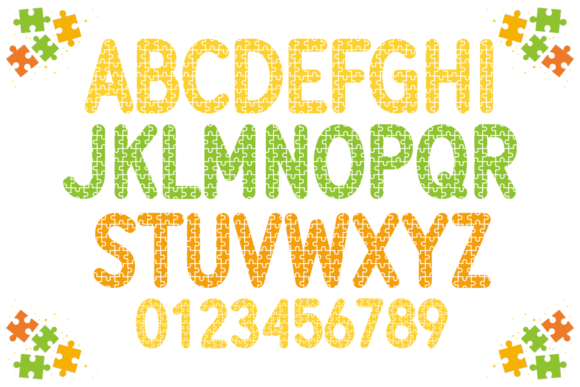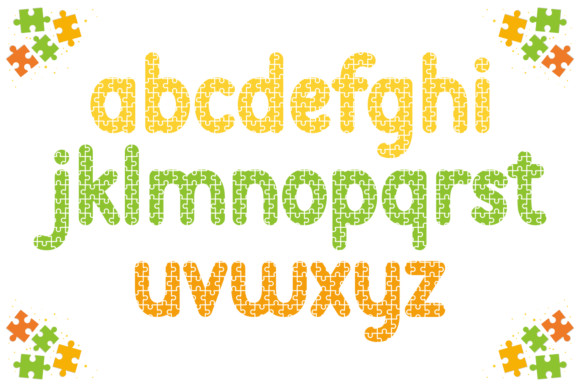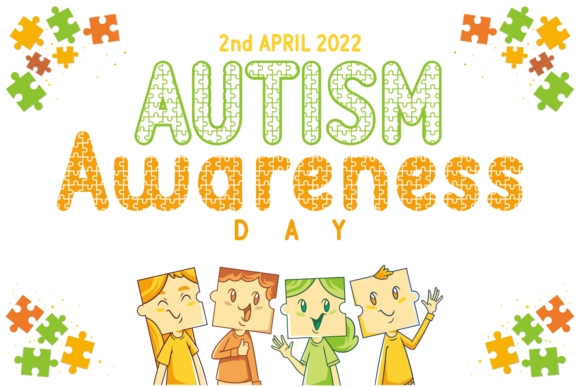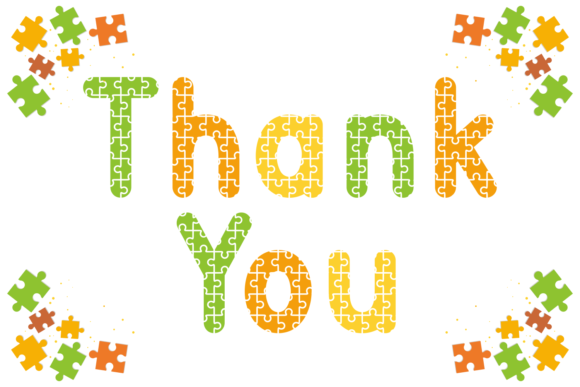
Introducing the Autism Awareness Font: A Symbol of Unity and Creativity
The Autism Awareness Font is a unique and captivating typeface that has taken the design world by storm. This cool, decorative font is inspired by the iconic puzzle pieces that represent autism awareness, and its distinctive style makes it perfect for a wide range of branding projects. In this article, we’ll explore the features and benefits of the Autism Awareness Font, and how it can elevate your designs to the next level.
The Inspiration Behind the Font
The Autism Awareness Font is more than just a typeface – it’s a symbol of unity and understanding. The puzzle piece, which is often associated with autism awareness, represents the complexities and diversity of the autism spectrum. By incorporating this iconic symbol into a font, designers can create materials that are not only visually striking but also thought-provoking. The Autism Awareness Font is a powerful tool for designers, crafters, and organizations looking to make a statement and raise awareness about autism.
Design Features and Benefits
The Autism Awareness Font boasts a range of design features that make it perfect for various branding projects. Some of its key benefits include:
- Unique and eye-catching design: The font’s puzzle piece-inspired style sets it apart from more traditional typefaces, making it perfect for designers looking to create something truly unique.
- Highly versatile: The Autism Awareness Font is suitable for a wide range of applications, from logos and t-shirt printing to sport designs and more.
- Scalable and legible: The font is designed to be clear and legible, even at small sizes, making it perfect for use on a variety of materials.
Perfect for Branding Projects
The Autism Awareness Font is an excellent choice for designers and organizations looking to create branded materials that make a statement. Whether you’re designing a logo, t-shirt, or social media graphic, this font is sure to turn heads. Its unique style and symbolism make it perfect for:
- Logos and branding materials: Create a lasting impression with a custom logo that incorporates the Autism Awareness Font.
- T-shirt printing and apparel: Design eye-catching t-shirts, hoodies, and other apparel that showcases your brand’s personality.
- Sport designs and events: Use the Autism Awareness Font to create jerseys, event posters, and other materials for sports teams and events.
Tips for Using the Autism Awareness Font
To get the most out of the Autism Awareness Font, here are a few design tips to keep in mind:
- Experiment with colors: The font looks great in a range of colors, so don’t be afraid to try out different combinations to find the one that works best for your design.
- Mix and match with other fonts: The Autism Awareness Font pairs well with a range of other typefaces, so feel free to experiment with different font combinations to create a unique look.
- Keep it simple: While the font is intricate and detailed, it’s best to keep your design simple and focused to ensure the font remains legible.
| Font Name | Autism Awareness Font |
| Author | Creative Keelik |
The Autism Awareness Font is a powerful tool for designers, crafters, and organizations looking to create materials that make a statement. Its unique design, versatility, and symbolism make it perfect for a wide range of branding projects. Whether you’re looking to raise awareness about autism or simply want to add a touch of personality to your designs, the Autism Awareness Font is an excellent choice. So why not give it a try and see how it can elevate your designs to the next level?